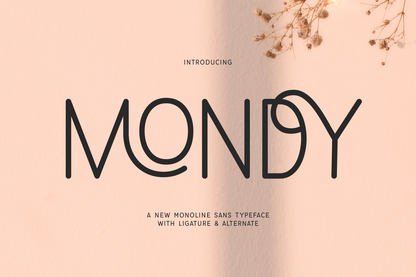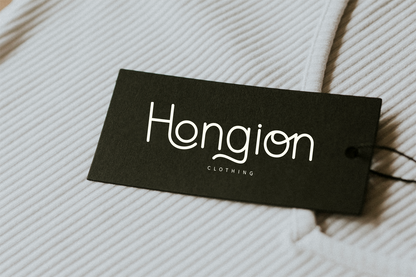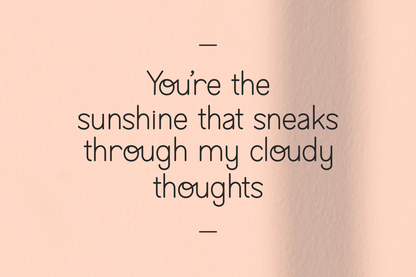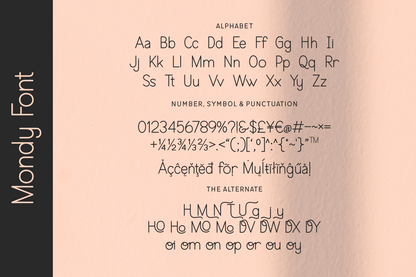
Mondy is a charming monoline sans-serif typeface that beautifully blends minimalism with a playful personality.
Featuring unique ligatures, stylistic alternates, and multilingual support, Mondy brings character and versatility to any creative project. The font’s delicate weight and quirky letterforms are perfect for logos, lifestyle packaging, and elegant editorial layouts.